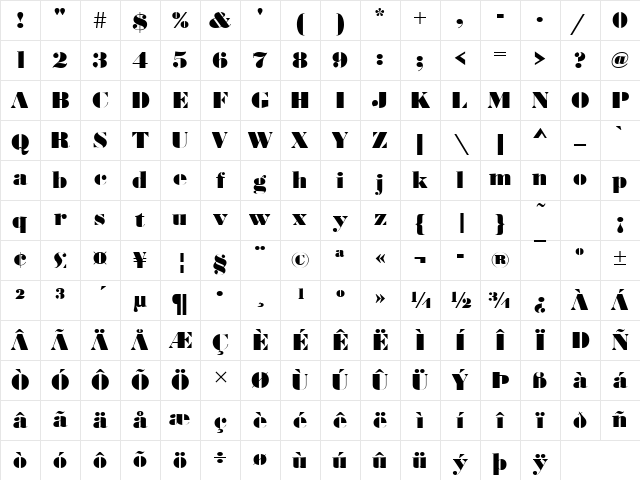
BodoniNo2DUlt Regular Free Font
BodoniNo2DUlt Regular
Design Context for BodoniNo2DUlt
BodoniNo2DUlt is a composed and adaptable typeface that performs quietly and consistently across a wide range of design contexts.